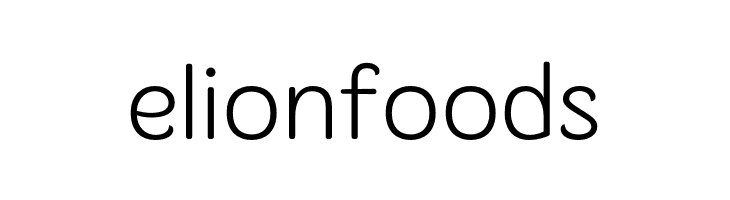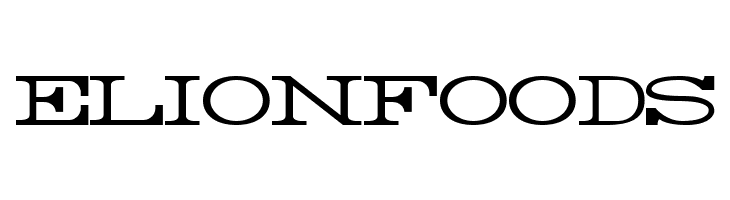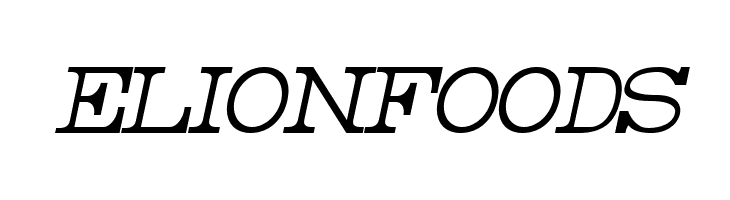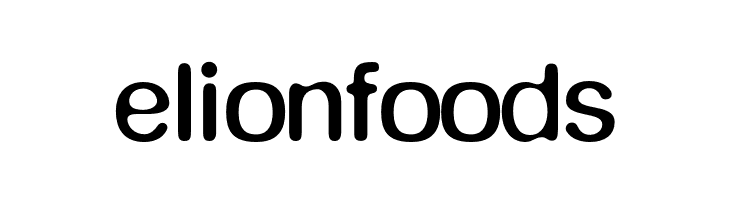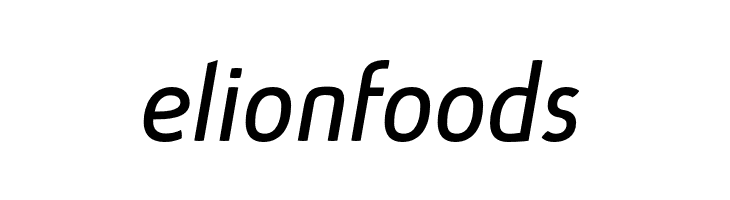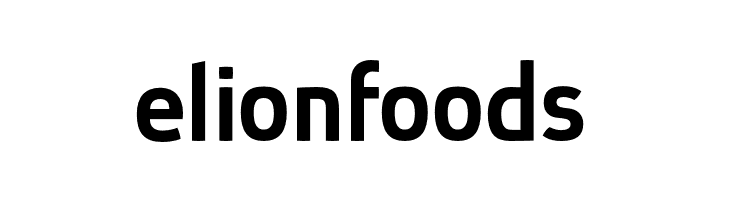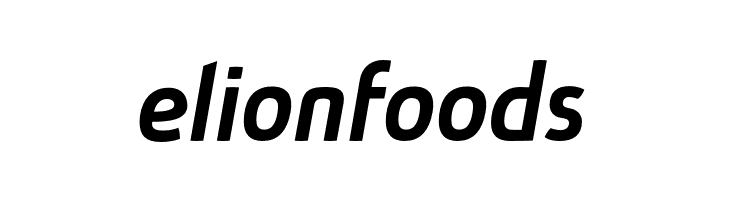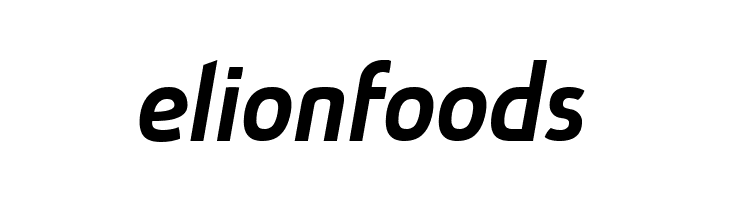
A bold, wide, and light serif font with a modern aesthetic.
A condensed, light, and italic serif font with a classic and elegant style.
A clean, rounded sans-serif font with smooth curves and uniform strokes.
A sleek, modern, and slightly italic font with a minimalist design.
A modern, slightly italic font with a clean and professional style.
A modern sans-serif font with a clean, balanced, and slightly condensed style.
A modern, light sans-serif font with a clean and minimalistic design.
A modern, slightly italicized font with a sleek and professional appearance.
A modern, italic sans-serif font with a sleek and dynamic style.